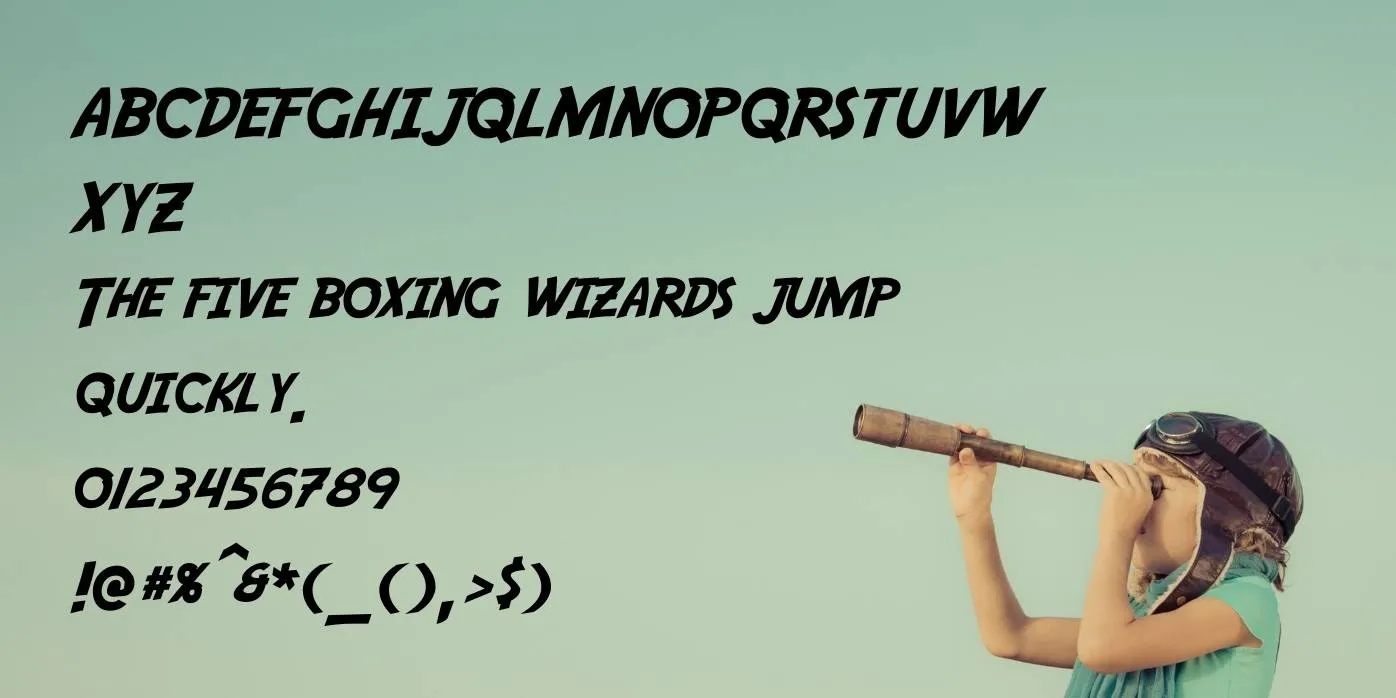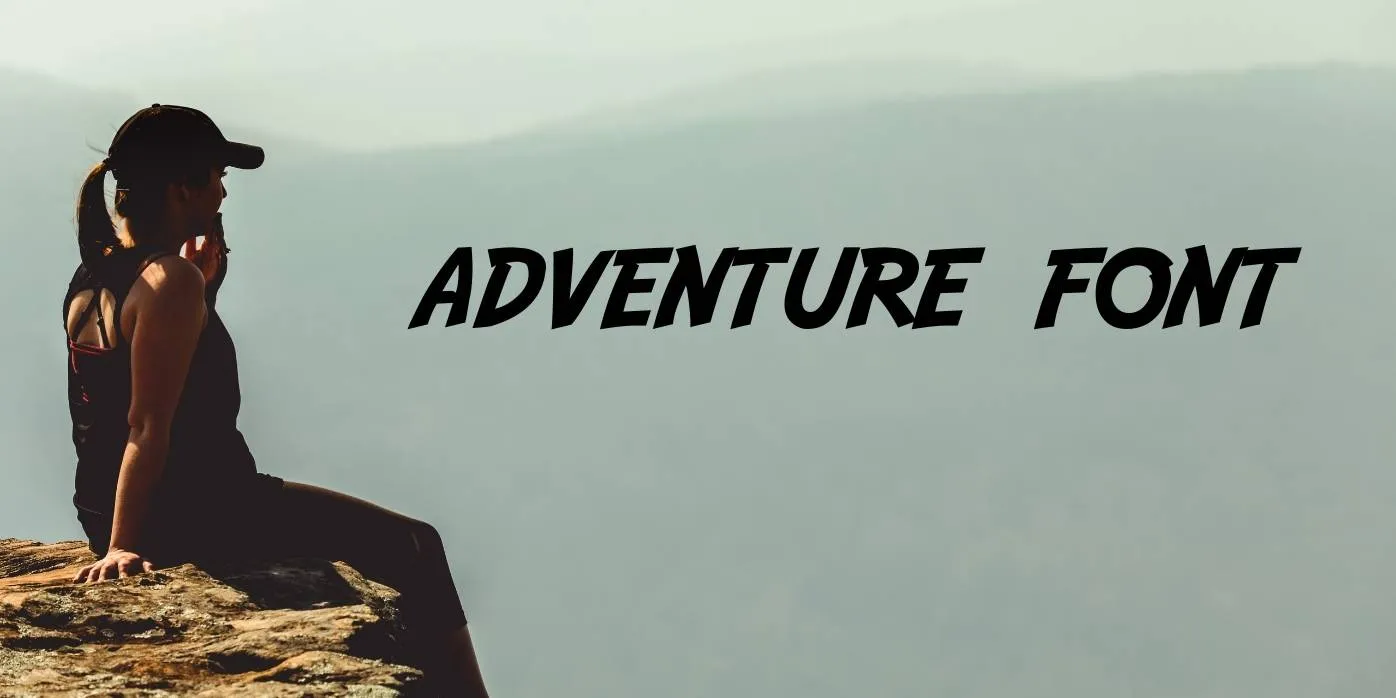
Adventure Font
Introducing a very elegant and stylish typeface that is known as Adventure Font. This ultimate typeface belongs to the comic typeface family and it is designed by Pixel Sagas. The font has OTF features and is available as free for personal use. It has 2 specific styles consists of Adventure and Adventure Hollow, Its simple style has condensed characters with cutting edge and filling texture.
While its Adventure Hollow style has only Strock with great visual feeling. This Opentype feature font has Uppercase and Lowercase, Letters, Numbers and Numerals, and meaningful symbols also. You may also get this typeface by an online generator tool even without downloading.